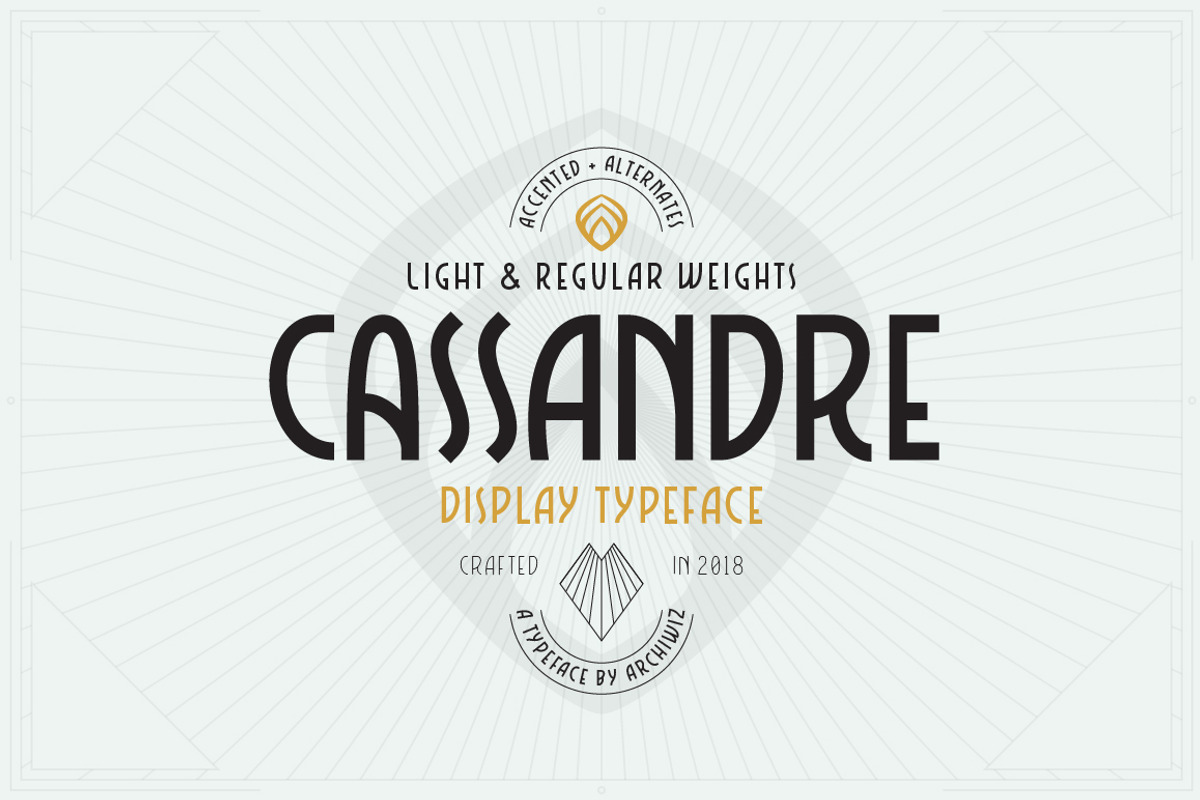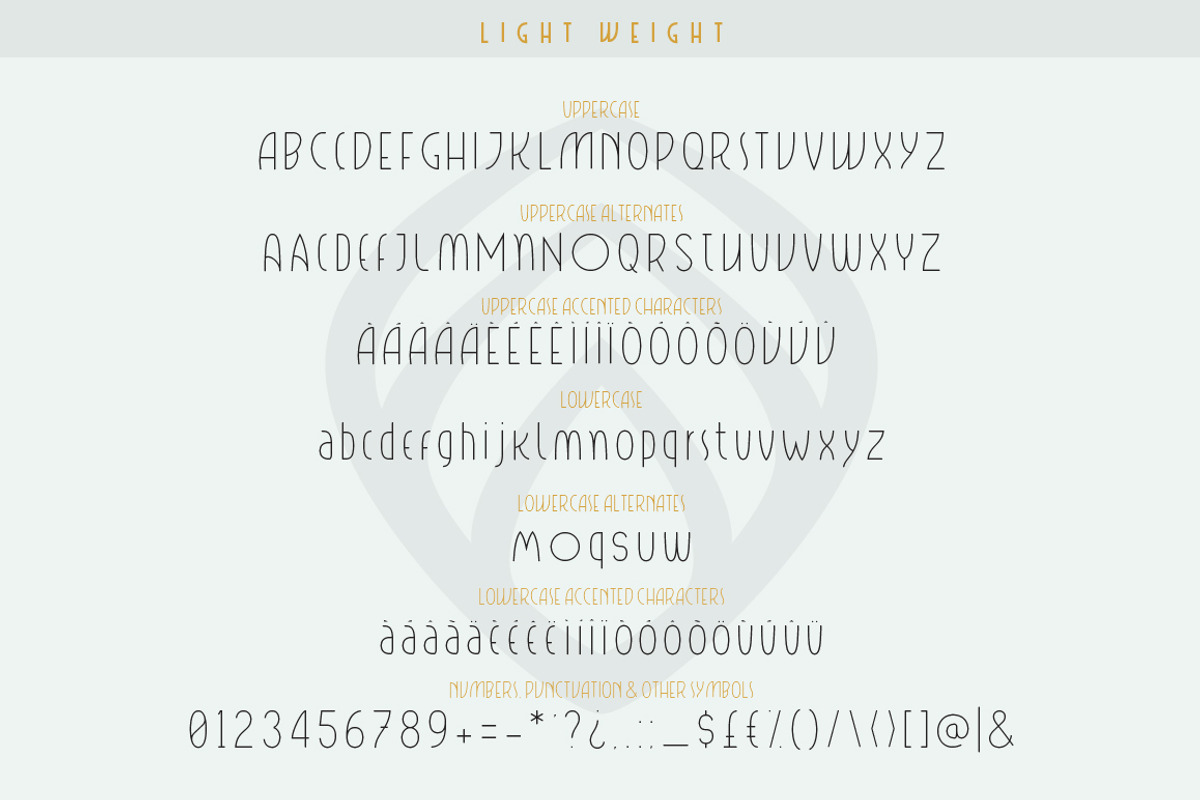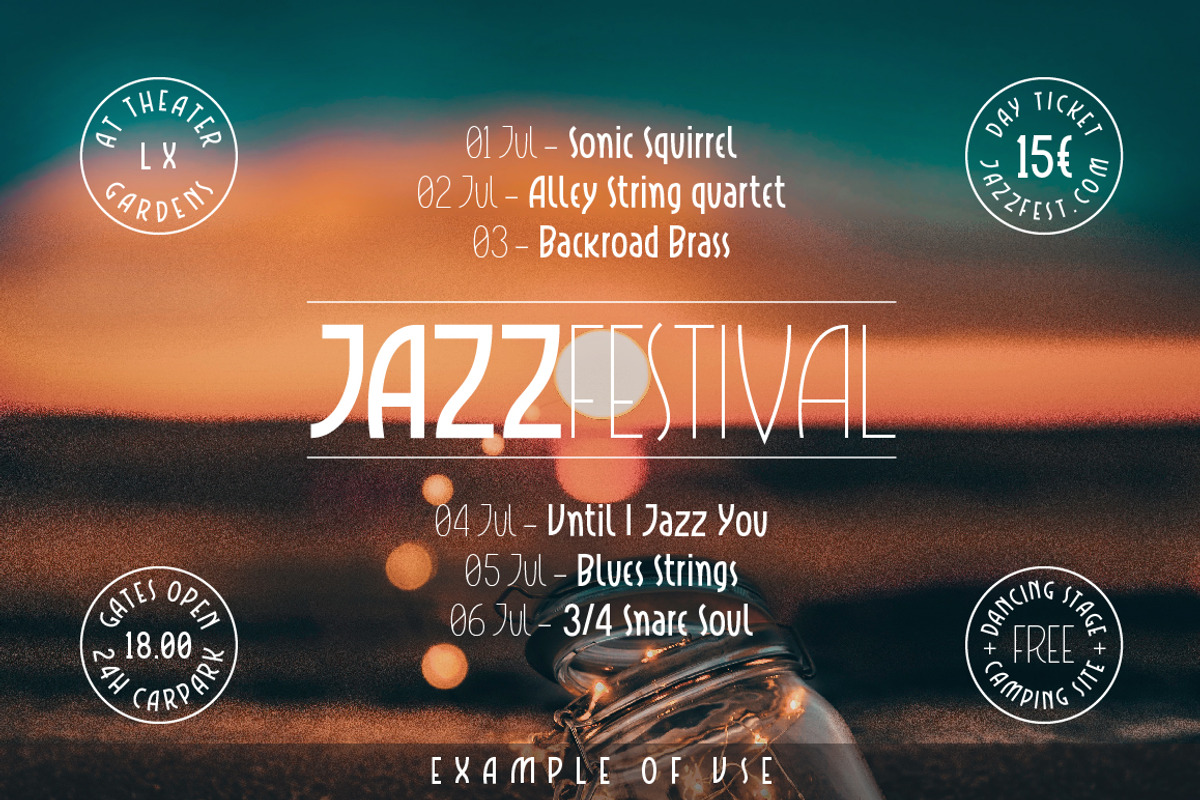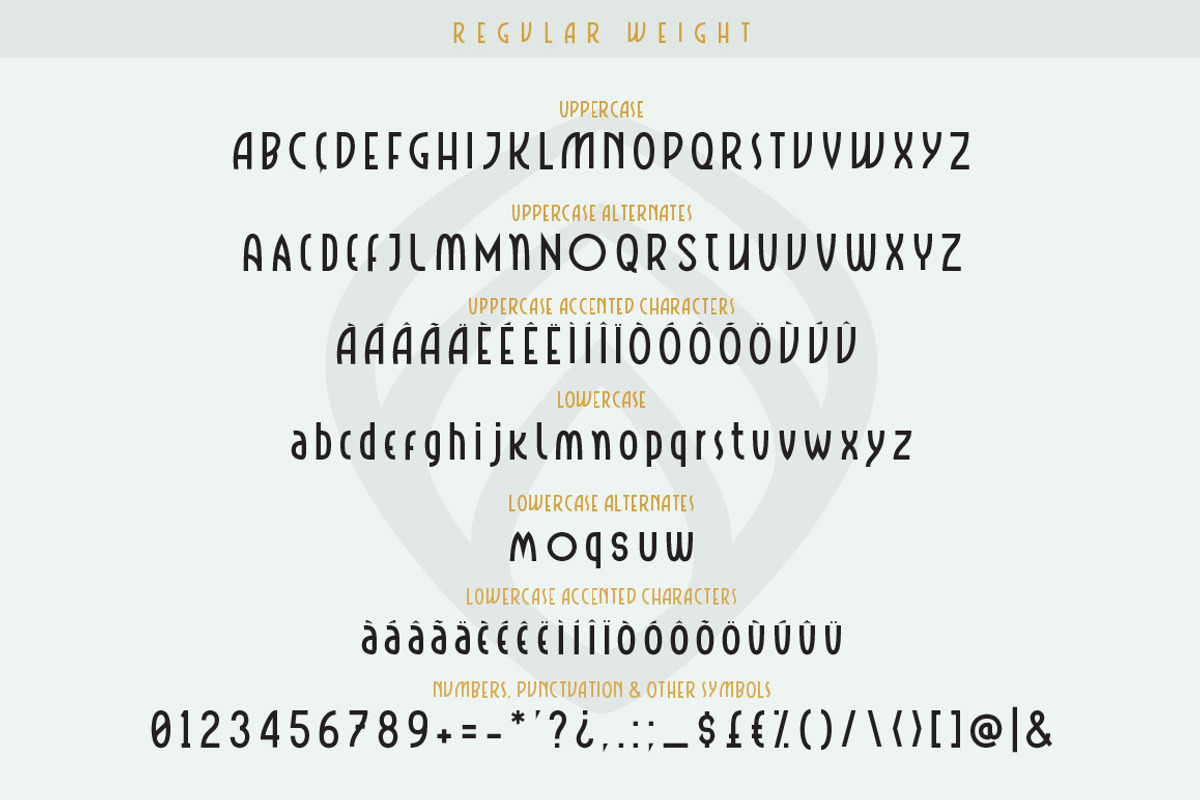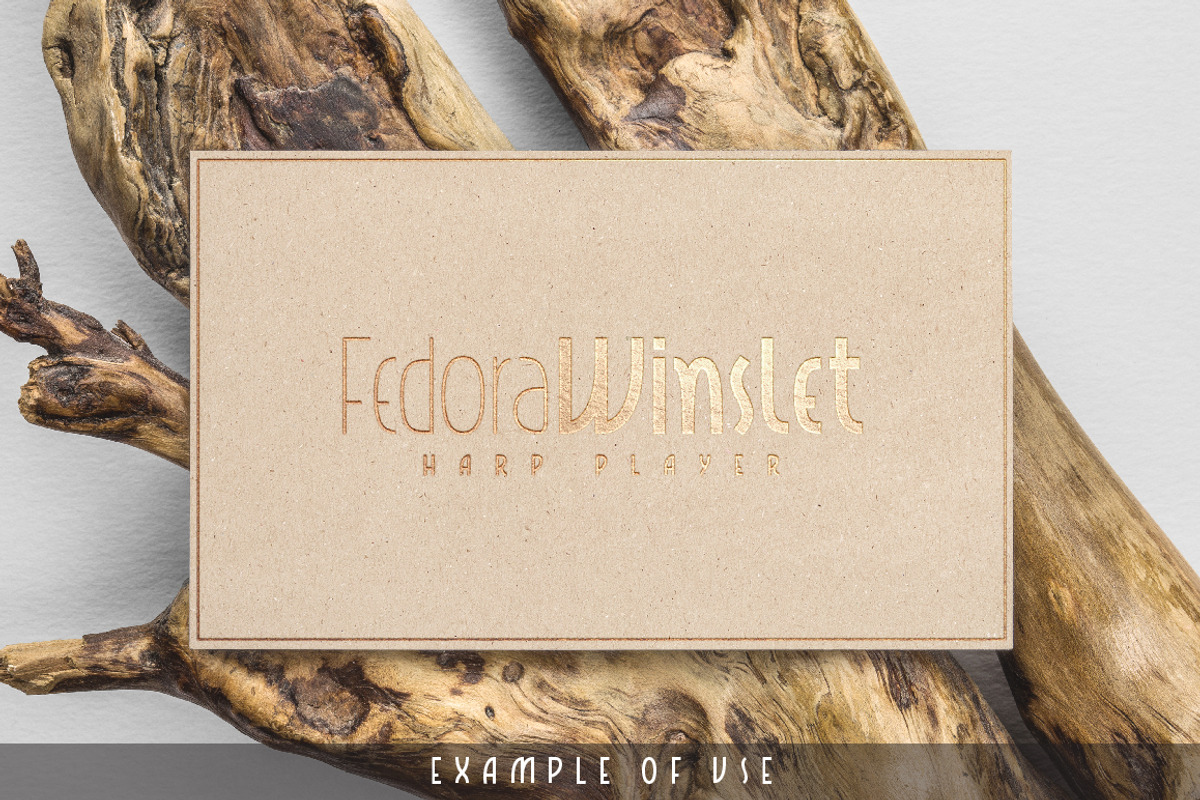
Cassandre font
Introducing 'Cassandre', a display font with Regular and Light weights, with various uppercase and lowercase alternates, accented characters, numerals and other symbols.
'Cassandre' is a vintage, industrial, Art Deco style font and it's name is a humble tribute to the great french artist and typeface designer Adolphe Jean-Marie Mouron, whose pseudonym is Cassandre.
This font is ideal for Packaging, Logo, Headline and card designs.
- Regular and Light weights
- Various Uppercase & Lower case alternates
- Numerals and other symbols